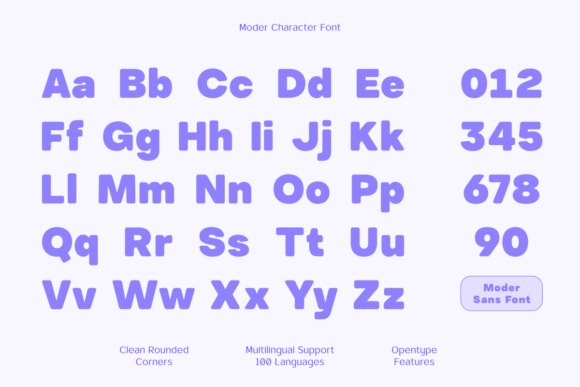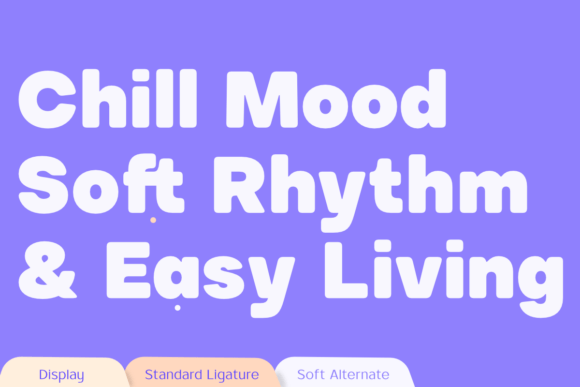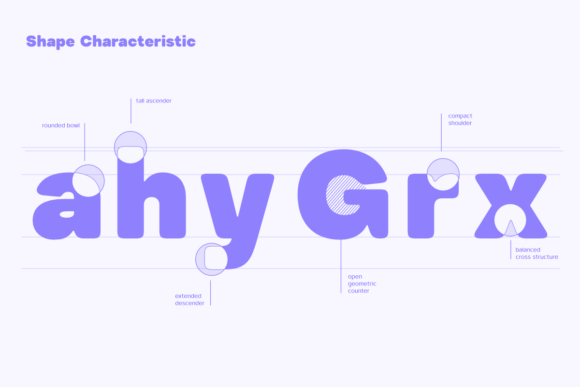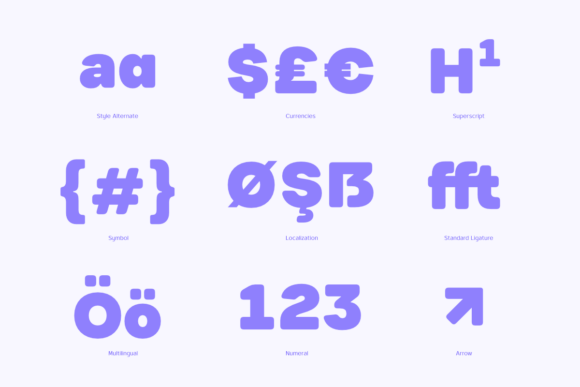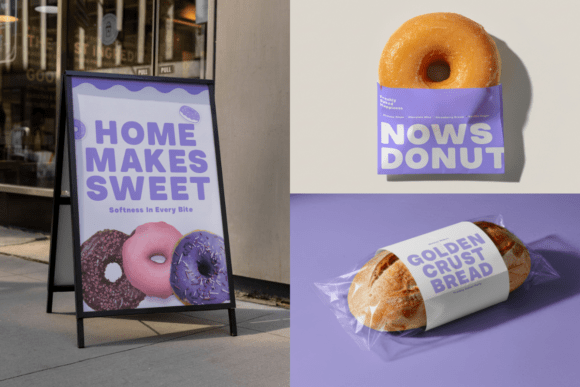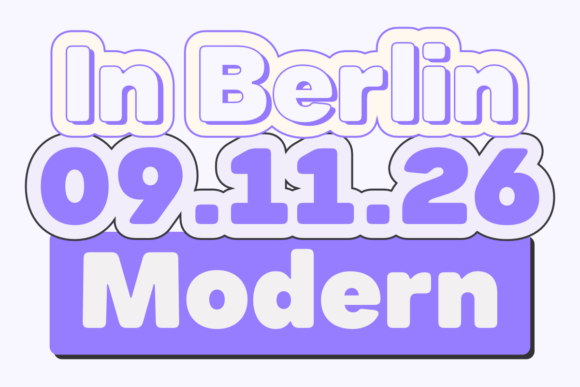
Introduction to Moder Font
As a designer, have you ever been stuck trying to find the perfect font for your creative project, only to end up with a font that’s too bland or too overpowering? I know I have. But what if I told you there’s a font that can bring a confident and contemporary tone to your typography, making your designs stand out in a crowded space?
Enter Moder Font, a sleek and modern display typeface that’s designed to deliver a bold and eye-catching visual identity. With its smooth curves and clean rounded corners, Moder Font is perfect for creating high-quality designs that demand attention. Whether you’re working on a branding project, designing posters, packaging, or social media graphics, Moder Font is a valuable design resource that’s sure to elevate your work.
Key Features of Moder Font
- Features a transparent background, making it perfect for overlaying on images or videos
- Includes a range of weights and styles to suit different design needs
- High-resolution fonts available at 300 DPI for crisp and clear display
- Perfect for designers looking for a modern, clean, and elegant font for their design resource library
Honest Review: Moder Font
I recently had the chance to work with the Moder Font, and I must say it’s been a great addition to my design arsenal. This font is perfect for any creative project that requires a clean and modern look.
- ✨ The Moder Font has a very high quality, making it suitable for both digital and print designs.
- ✨ The transparent background makes it easy to customize and use with any design element.
While the Moder Font is great, I did encounter a few limitations. It’s not ideal for projects that require a lot of emphasis on bold or italic text. The font family is limited, so you may find yourself needing to use other fonts to achieve the desired effect.
- Limitations:
- ⚠️ Limited font family, which can be restrictive in certain design situations.
- ⚠️ Not ideal for projects that require bold or italic text.
Overall, I’m impressed with the Moder Font. It’s a solid design resource that’s perfect for a wide range of creative projects. If you’re looking for a clean and modern font that’s easy to use, I highly recommend giving it a try.
Moder Font
Tips for Getting the Most Out of Moder Font
To maximize the use of Moder Font:
- Experiment with different font sizes and styles.
- Combine Moder Font with other design elements to create visually appealing designs.
Moder Font is ideal for:
- Designing logos and branding materials.
- Creating presentations and reports.
- Developing marketing materials, such as flyers and brochures.
Alternatives to Moder Font
Open Sans is a modern sans-serif font suitable for a wide range of creative projects, including digital designs and high-quality publications. Its clean design and transparent background make it ideal for use as a design resource. You can download Open Sans for free and use it for both personal and commercial projects.
When to use: Open Sans is perfect for body text in digital designs, as well as for creating a clean and modern look in print materials. It’s a great alternative to Moder Font for designers who want a high-quality sans-serif font with a friendly feel.
Comparison: Open Sans has a more relaxed feel compared to Moder Font, making it suitable for a wider range of creative projects.
Montserrat is a geometric sans-serif font designed for use in digital designs, including websites, mobile apps, and high-quality digital publications. Its clean design and transparent background make it an excellent design resource for designers who want a modern look. You can download Montserrat for free and use it for both personal and commercial projects.
When to use: Montserrat is perfect for use as a headline font or for creating a modern and urban look in digital designs. It’s a great alternative to Moder Font for designers who want a high-quality sans-serif font with a strong, geometric feel.